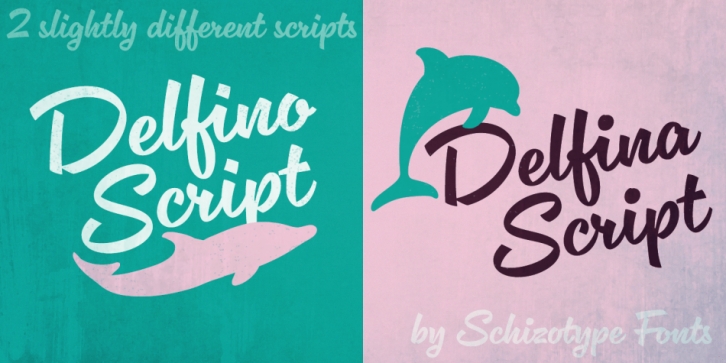
Delfino & Delfina Script is a brush script font family. This typeface has two styles and was published by Schizotype Fonts.
Delfino Script is a cool, connecting script that can appear both retro and contemporary. Curved on the outsides of strokes, and jagged inside, the forms look like an abstraction of strips of tape, folding and flowing, or even marker pen style lettering. This script is not created by any pen though - its forms are constructed, not painted. Typographic features like ink traps add sparkle to the text.
OpenType features include ligatures, contextual alternates (for more realistic connections) and stylistic sets. Stylistic Set 1 changes certain upper case letters into forms more suited for all caps setting, although they can also be used freely with the lower case. Set 2 changes the r into a less scripty form and set 3 adds a connecting tail to the q.
Delfino Script would find itself at home in cookery books, fashion blogs, vintage car magazines and set large and proud on expanses of concrete, or, most likely, whatever you might have in mind for it!
Delfina Script is practically identical to Delfino save for round tittles, periods and any other dot shaped glyph components. Strangely for such a little change, it does seem to give the face a different character.